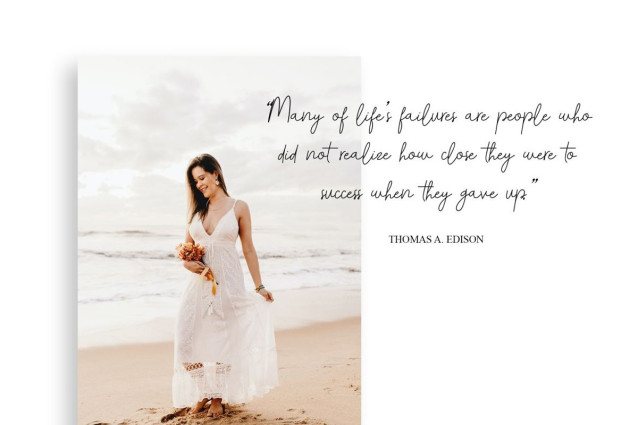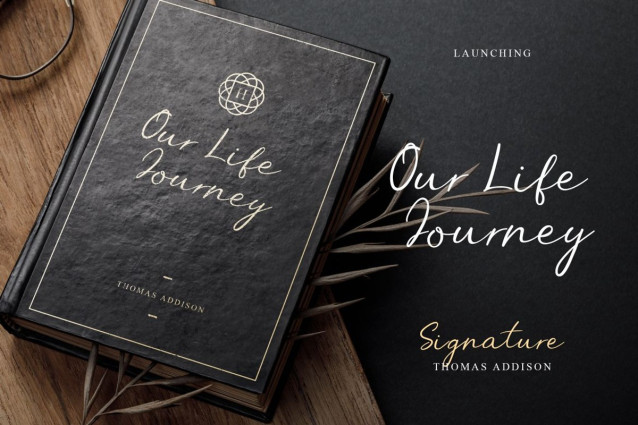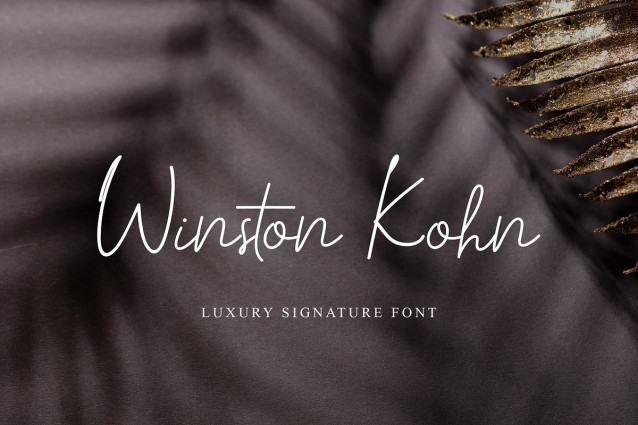
Winston Kohn Script Font
Winston Kohn Script Font This font is ideally suited for a wide variety of projects, such as signature, stationery, logo, wedding, typography quotes, magazine or book covers, website headers, clothing, branding, packaging design, and more. Also, fashion-related branding or editorial design displays both masculine and feminine qualities.